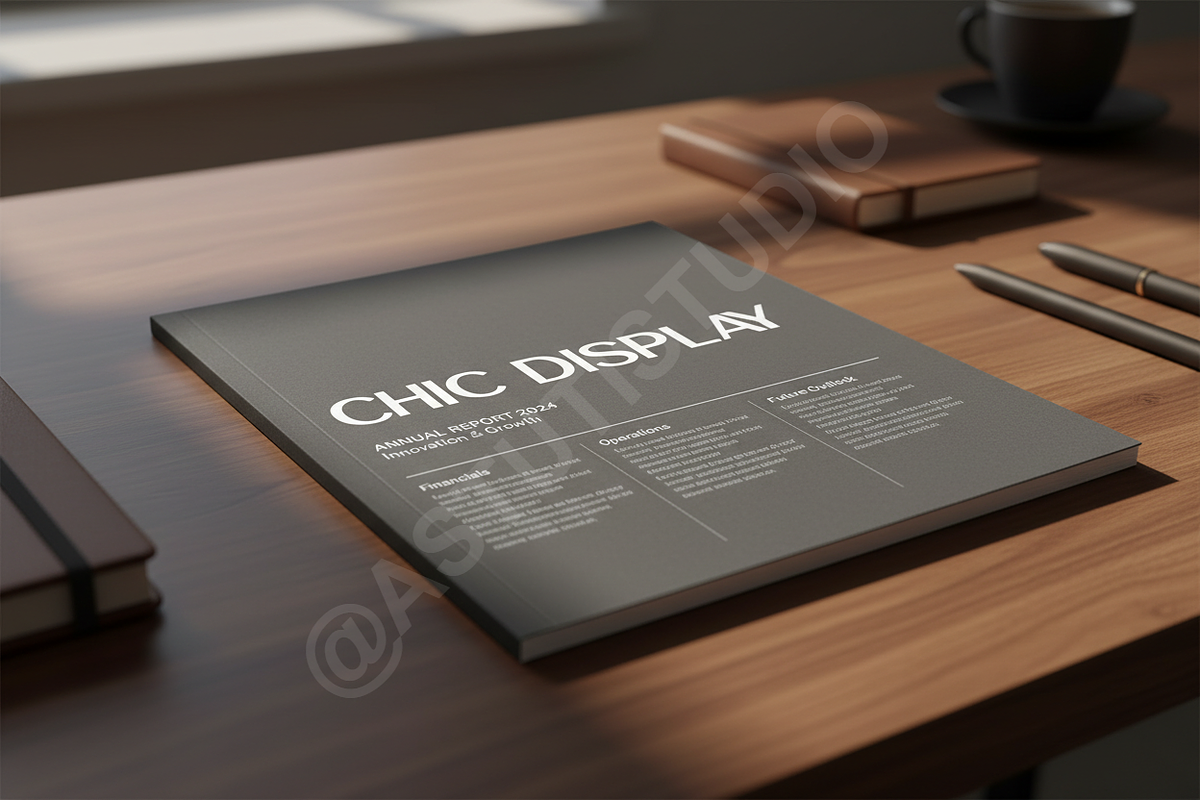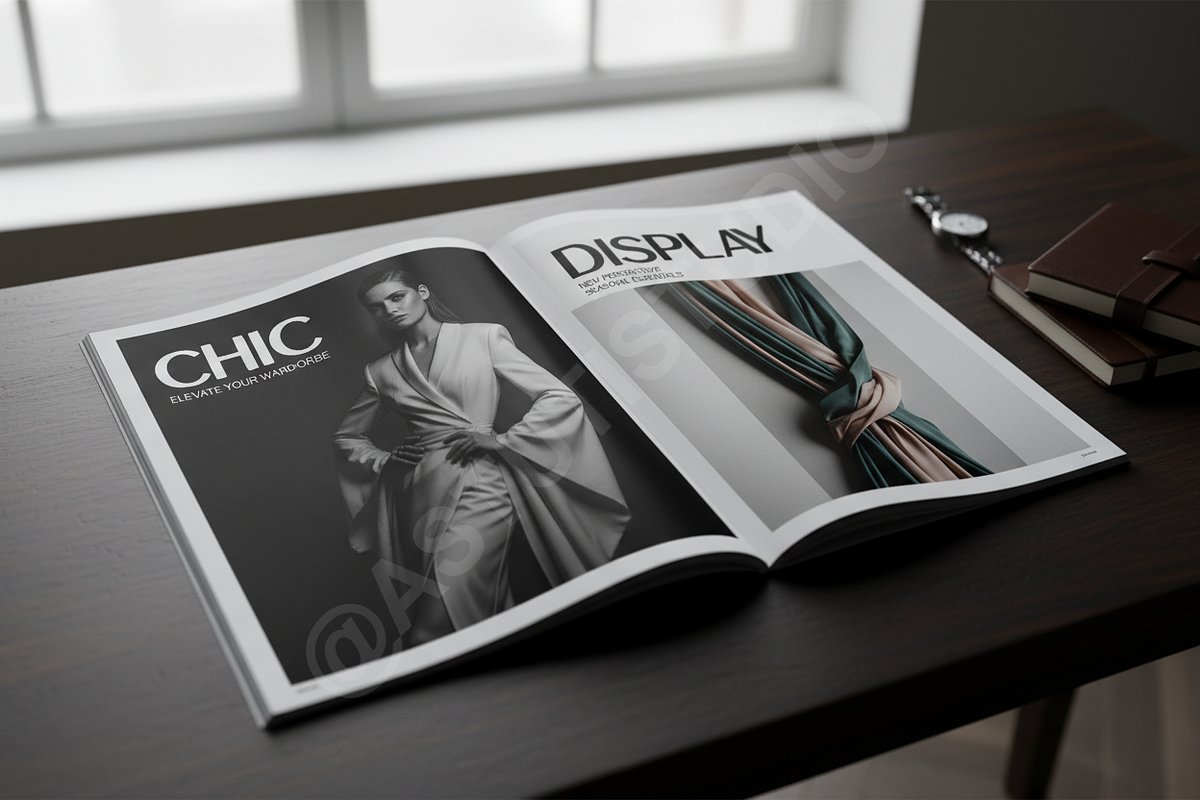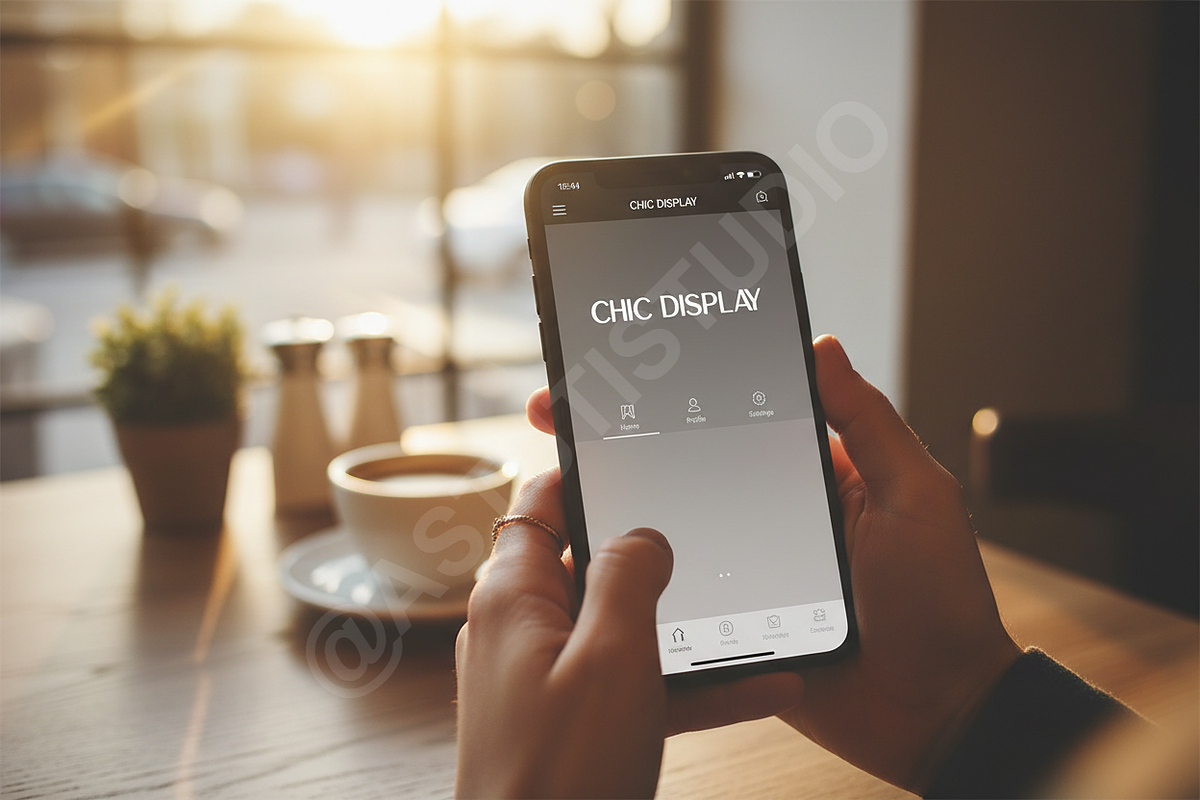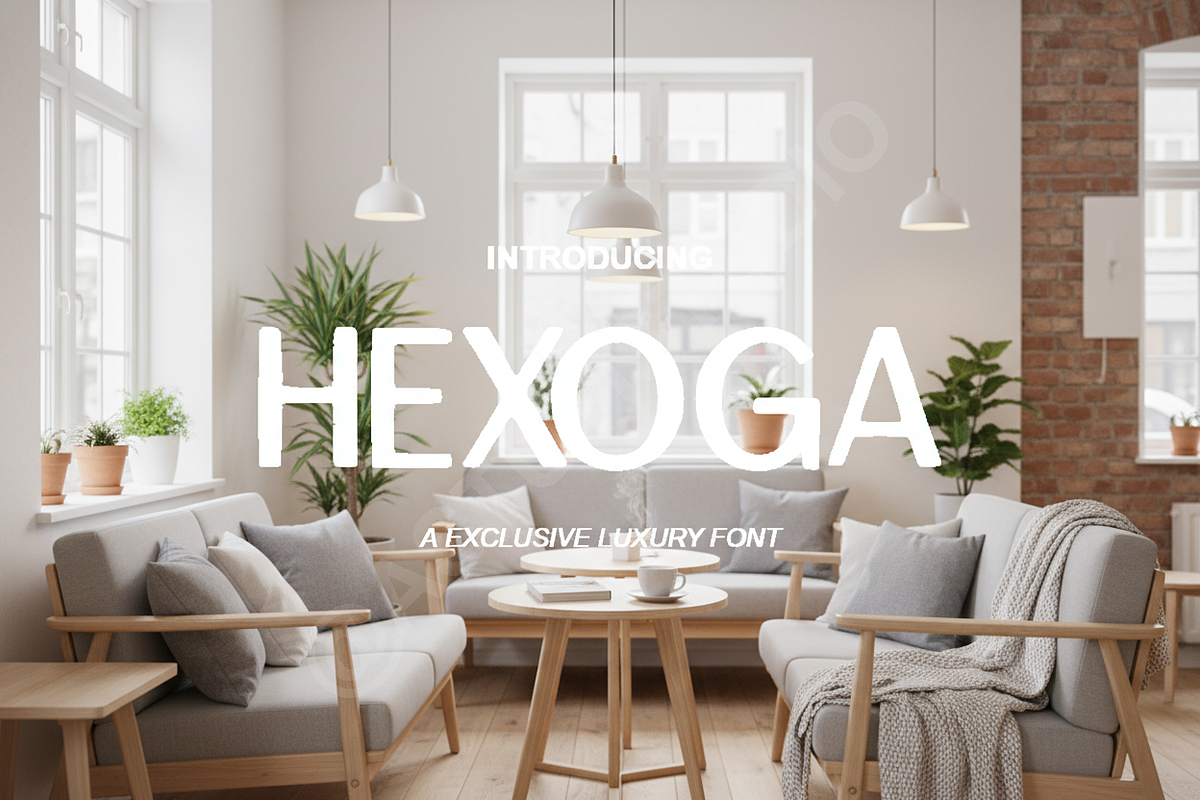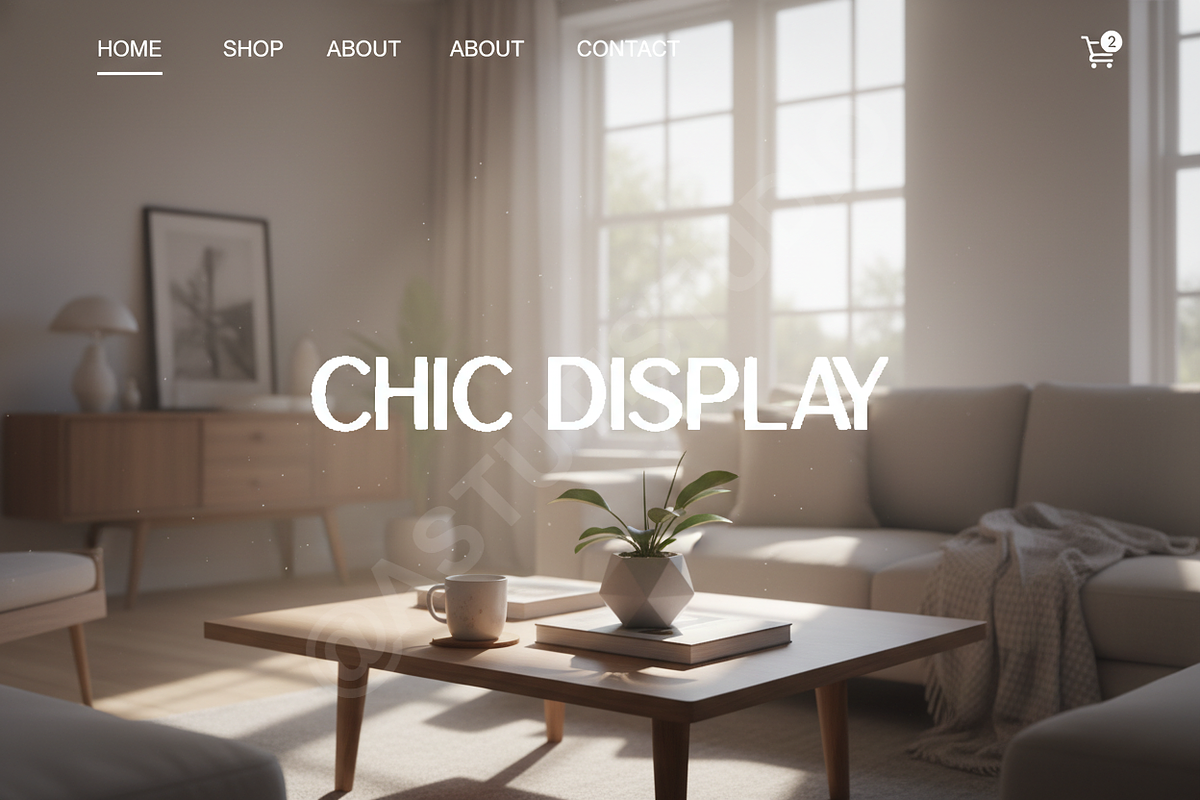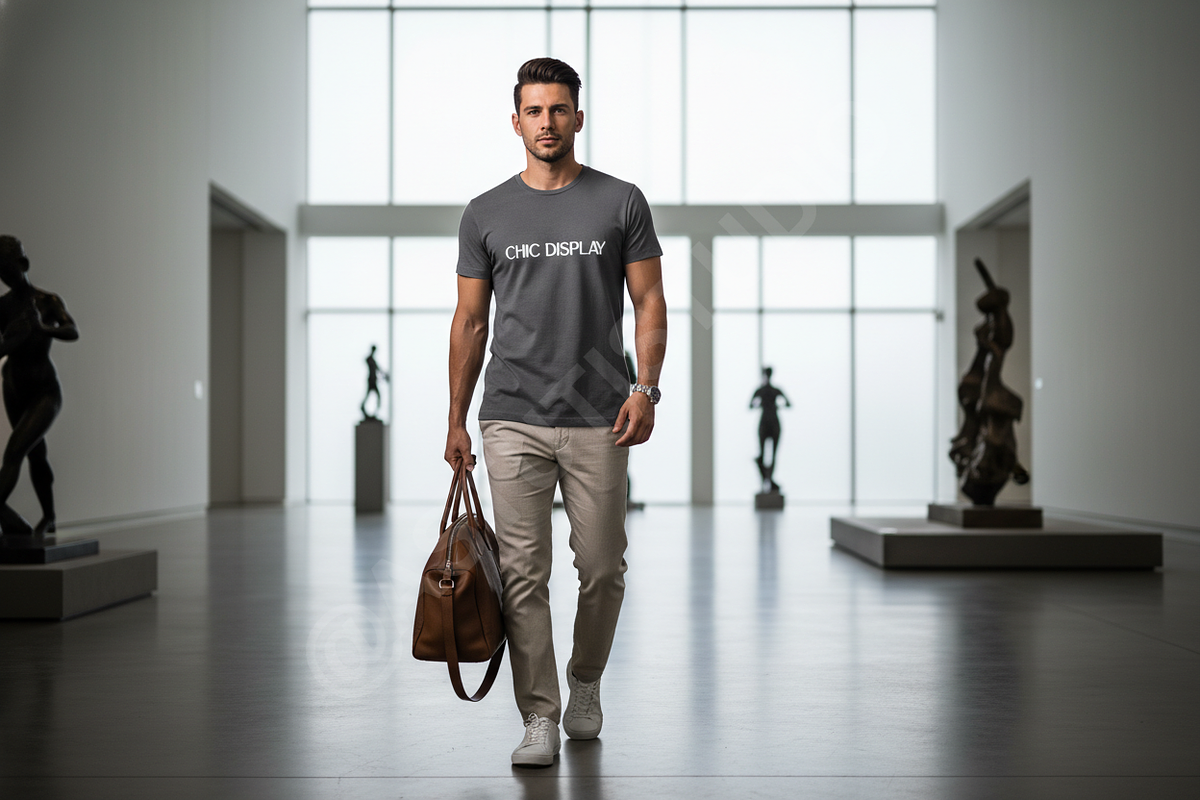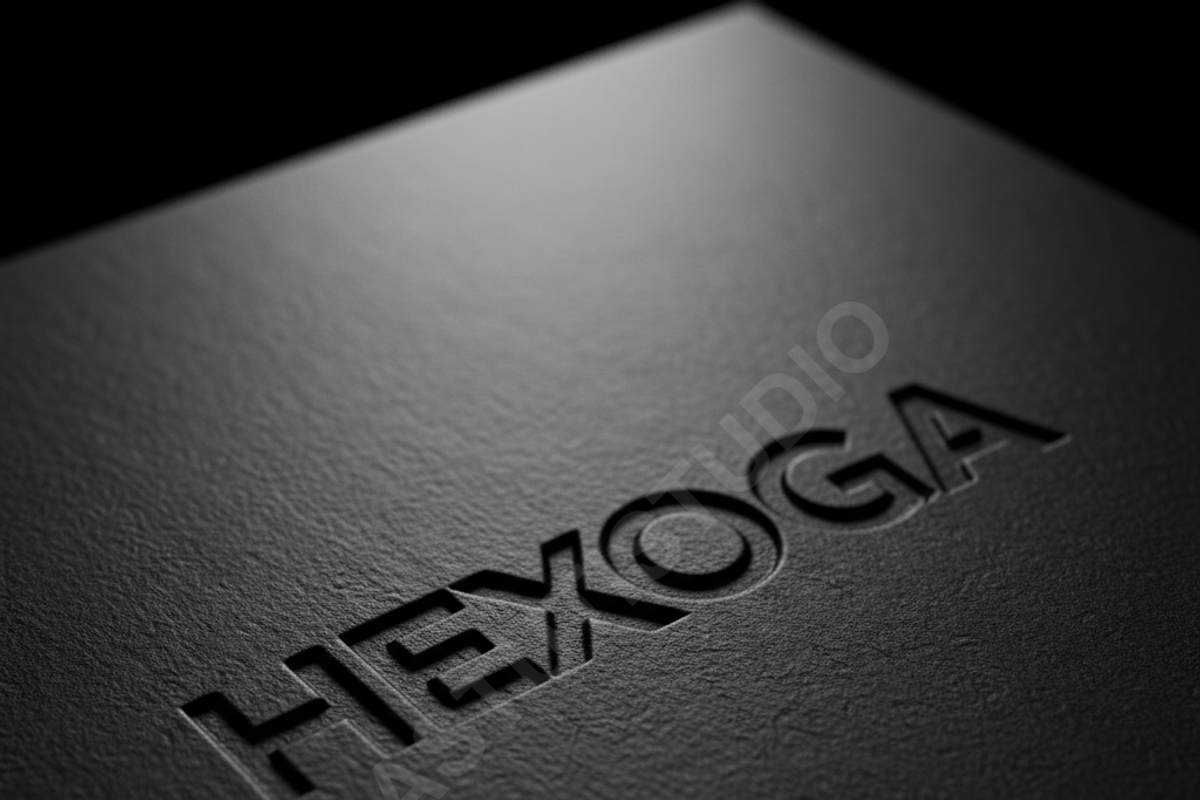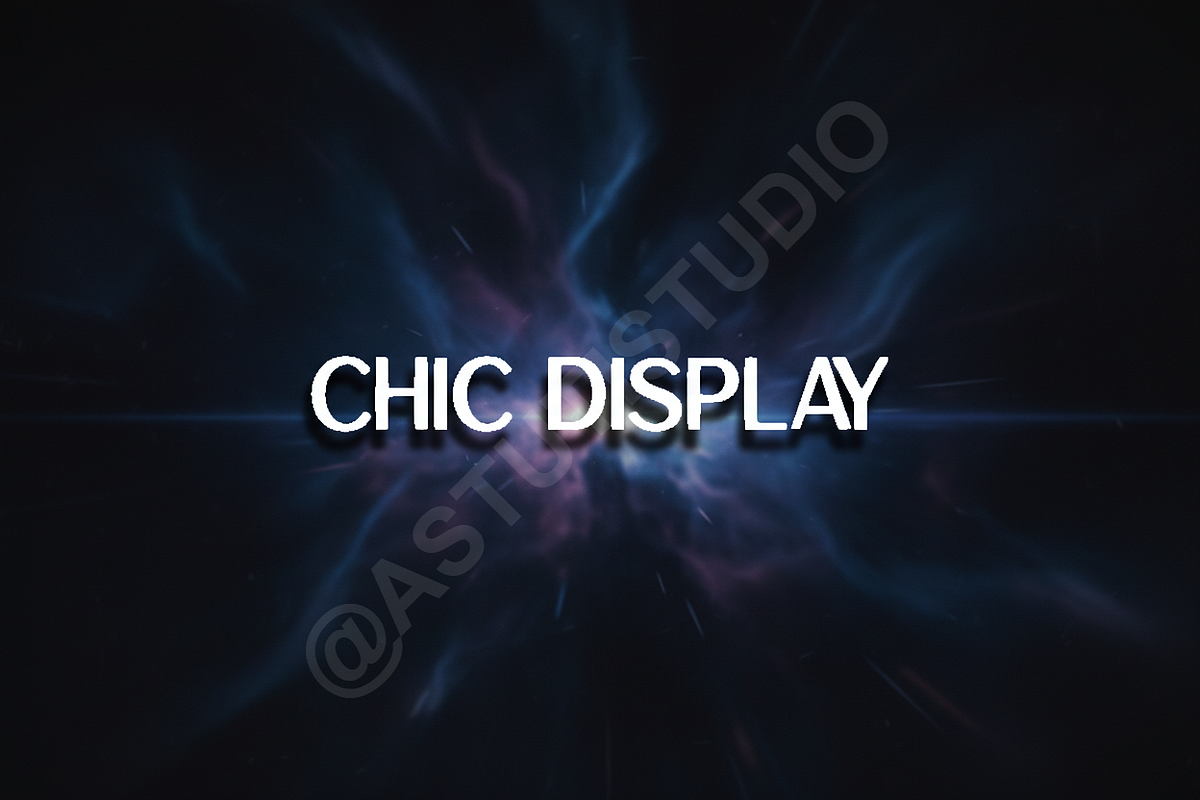
Hexoga - Elegant Modern Serif Displa
INTRODUCTION Elevate your visual identity with Hexoga, a premium display typeface meticulously crafted for high-end aesthetics. Defined by its sharp terminals and refined geometry, Hexoga strikes a sophisticated balance between contemporary minimalism and classic luxury. This font is designed to command attention while maintaining an air of effortless grace.
- Elegant serif letterforms with a modern edge
- Clean, geometric construction for maximum legibility
- Comprehensive multilingual support
- Unique ligatures and stylistic alternates
- Optimized kerning for professional editorial use
- High-contrast strokes perfect for large-scale displays
PERFECT FOR Hexoga is the ideal choice for luxury branding, editorial layouts, high-fashion social media content, minimalist logo design, and high-end wedding invitations. Whether you are designing a boutique storefront or a premium digital magazine, Hexoga provides the professional polish your project deserves.